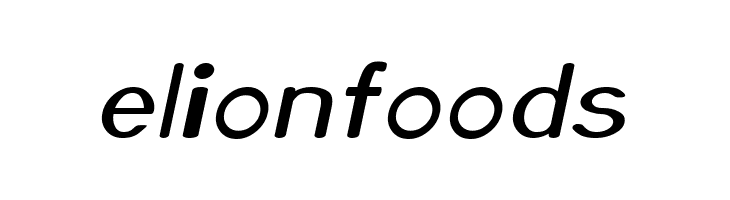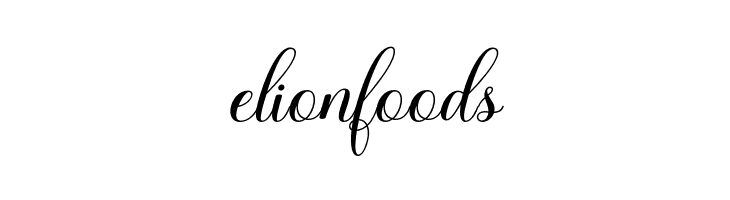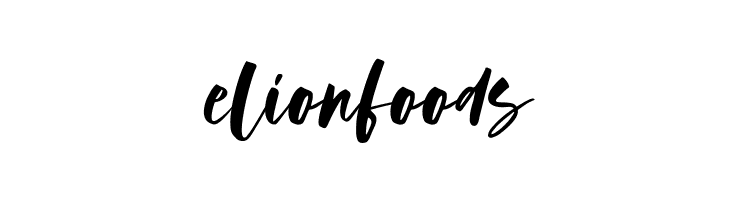
A sleek, modern, thin italic font with a clean and professional appearance.
A dynamic, expressive handwritten font with elongated, flowing letterforms.
A modern, cursive script font with elegant, elongated letters and a sleek appearance.
A bold, dynamic handwritten font with fluid and expressive strokes.
A sophisticated, elegant handwritten font with fluid, cursive letterforms.
A fluid, cursive font with interconnected letters and a natural handwriting style.
A modern, handwritten font with elegant, flowing cursive strokes.
A dynamic cursive script with elegant, flowing lines and a handwritten appeal.